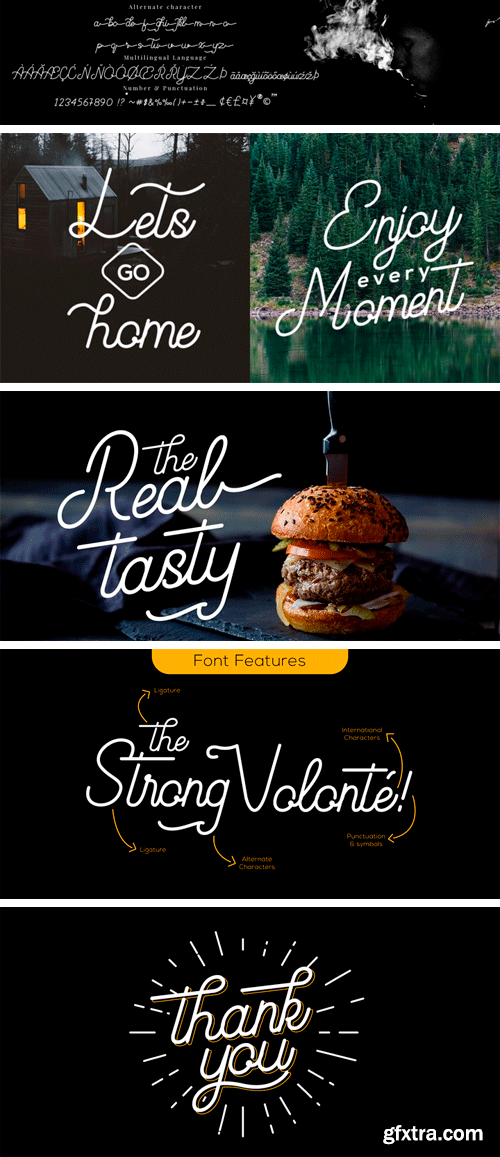
Beauty One Script Typeface
- Introducing Beauty One, a stylish monoline script style font. This beautiful script font offers your personal touch to your latest art project with fresh, curvy and beautiful look.